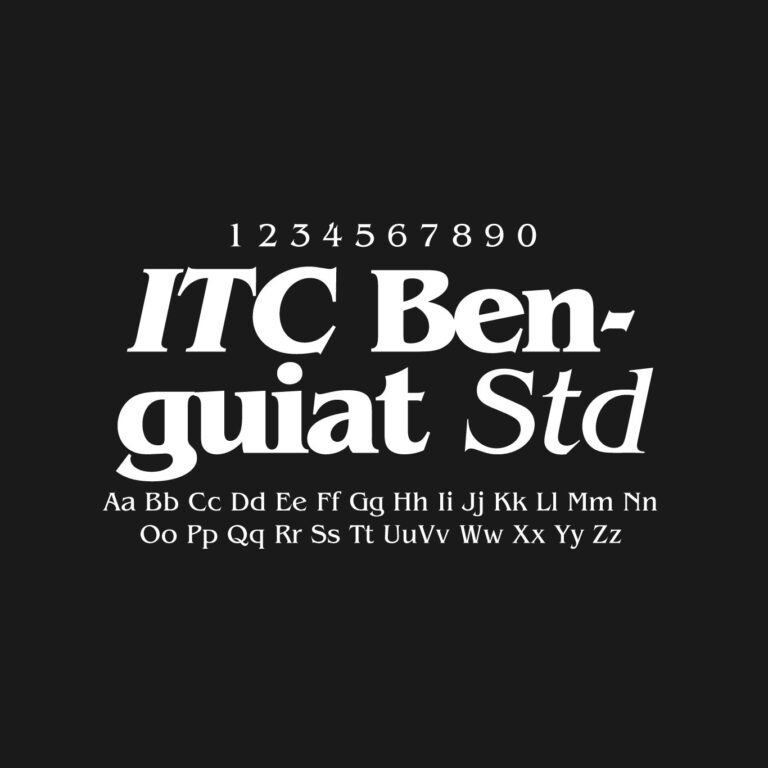
ITC Benguiat Std is a decorative serif typeface with distinctive curves, sharp details and a strong retro editorial character. It works well for book covers, posters, album artwork, film titles, vintage branding, packaging, invitations, editorial layouts, website headings and display typography projects that need a dramatic and recognizable serif style.
Designer: Ed Benguiat
Foundry: ITC